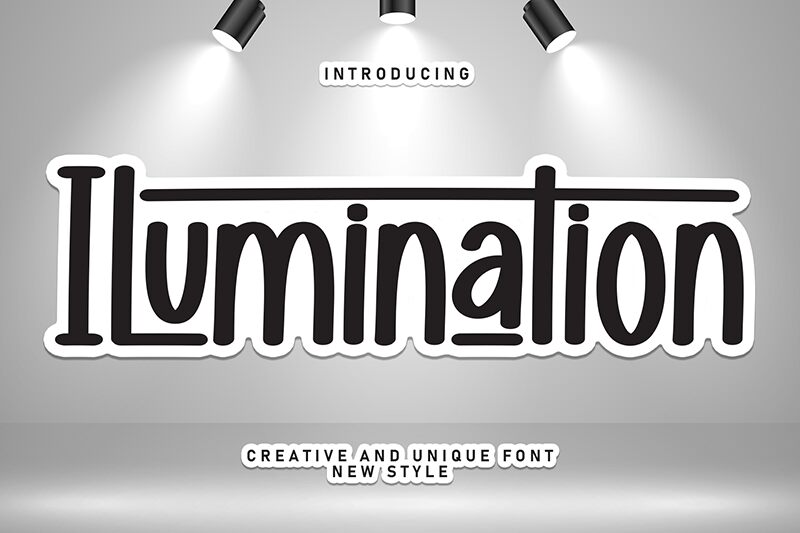
Ilumination
Ilumination font by Andi Moz is a free brush font that creatively combines condensed style with an organic, casual, and approachable look. The modern touch of this handwritten display is refreshing with a youthful appeal that instantly enhances whatever you are working on.